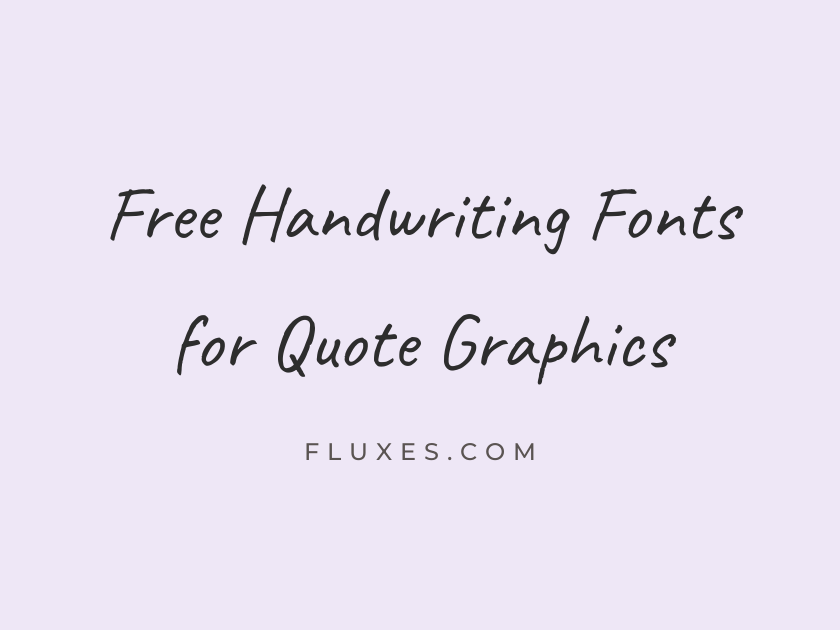
64 Best Free Handwriting Fonts for Quote Graphics
There is something instantly persuasive about a quote rendered in handwriting. It reads as personal, as if someone actually picked up a pen and meant every word, which is exactly why handwriting fonts dominate social quote graphics, inspirational posters, wedding signage, and greeting cards. The good news for anyone building these graphics on a budget is that Google Fonts has one of the deepest libraries of free handwriting and script fonts anywhere online, spanning casual marker scrawls, flowing calligraphy, and everything in between.
Choosing well matters more than it seems. A script that looks gorgeous at forty-eight points can turn into an unreadable tangle at eighteen, and a font built for a single word of emphasis will feel exhausting across three lines of text. What follows is a wide survey organized loosely from casual and everyday handwriting through brush lettering into elegant copperplate-style scripts, so you can match the mood of your quote graphic to the right hand.
1. Caveat
Some days the words just flow
Caveat has become the default modern handwriting font for a reason: it is loose and energetic without tipping into messy, and its bold weight holds up beautifully at large display sizes on quote cards. It pairs naturally with a clean sans serif for attribution lines underneath.
2. Kalam
Write it down, then believe it
Kalam has a rounder, more deliberate stroke than most casual scripts, closer to careful ballpoint writing than a fast scrawl. It stays legible even in longer quotes, which makes it a safe pick when you need more than a single punchy line.
3. Indie Flower
Small moments make big memories
Bubbly, bouncy, and a little childlike, Indie Flower brings warmth to lighthearted or feel-good quotes. It works best short; long passages start to feel busy.
4. Patrick Hand
Notes to self, worth keeping
Patrick Hand mimics tidy classroom handwriting, the kind a diligent student would produce. Its evenness and generous spacing make it one of the most readable handwriting fonts on this list, ideal for quote graphics meant to be actually read rather than just admired.
5. Shadows Into Light
Chase the light, always
This is a thin, fast-moving script with an airy, sketched quality. It suits minimalist quote graphics on pale backgrounds where you want the words to feel drawn rather than typed.
6. Architects Daughter
Build something worth remembering
Architects Daughter has a slightly angular, drafting-table charm, as though jotted in the margin of a sketchbook. It reads well for motivational or maker-culture quotes and pairs nicely with technical or grid-based layouts.
7. Permanent Marker
Bold words for bold moments
Thick, confident, and impossible to ignore, Permanent Marker is the font to reach for when a quote needs to shout rather than whisper. It gets muddy in long sentences, so save it for headlines and short punchy statements.
8. Gochi Hand
Little notes, honest thoughts
Gochi Hand has a slightly wobbly, endearing informality, like a note left on a fridge. It is best kept short and casual rather than stretched across a full paragraph.
9. Homemade Apple
Written with care, just for you
Dense and inky, Homemade Apple looks like it was written with a fine felt-tip on textured paper. The heavier strokes demand generous line spacing in quote graphics so letters do not collide.
10. Reenie Beanie
Quick thoughts, scribbled sideways
Reenie Beanie
Reenie Beanie leans and rushes across the baseline, capturing the energy of a quickly jotted idea. Its narrow letterforms let you fit surprisingly long quotes into a single line.
11. Rock Salt
Rough edges, real feelings
Rock Salt is deliberately rough and uneven, evoking a grease pencil or chalk marker. It suits gritty, honest, or rebellious quotes far better than anything polished or formal.
12. Covered By Your Grace
Grateful hearts, written plainly
Covered By Your Grace
A gentle, unhurried script with a devotional, storybook feel, Covered By Your Grace is a favorite for faith-based and sentimental quote graphics. Keep sizes generous since its thin strokes can thin out further on small screens.
13. Just Another Hand
Just another day, just another dream
Condensed and slightly retro, Just Another Hand looks like handwriting on an old typewritten memo. It is compact enough to squeeze longer quotes into tight graphic templates without losing character.
14. Sacramento
Elegant thoughts in a single line
Sacramento is a delicate monoline script, thin and sophisticated rather than casual. It shines on light, airy quote designs, especially wedding or lifestyle content, though it needs a decent size to avoid disappearing.
15. Dancing Script
Dance through life, one quote at a time
One of the most downloaded fonts on the entire platform, Dancing Script earns its popularity with lively, connected letterforms that never feel stiff. The bold weight in particular gives quote graphics a joyful, celebratory tone that works across weddings, greeting cards, and social posts alike.
Limit yourself to one expressive script per graphic. Reserve the boldest, loopiest choices for short phrases, and save longer quotes for the calmer, more legible options on this list.
With this range of free handwriting styles available through Google Fonts, there is rarely a reason to reach for a stock system font when building quote graphics. Download a handful, test them against your actual content and imagery, and let the tone of the quote guide which hand tells it best.